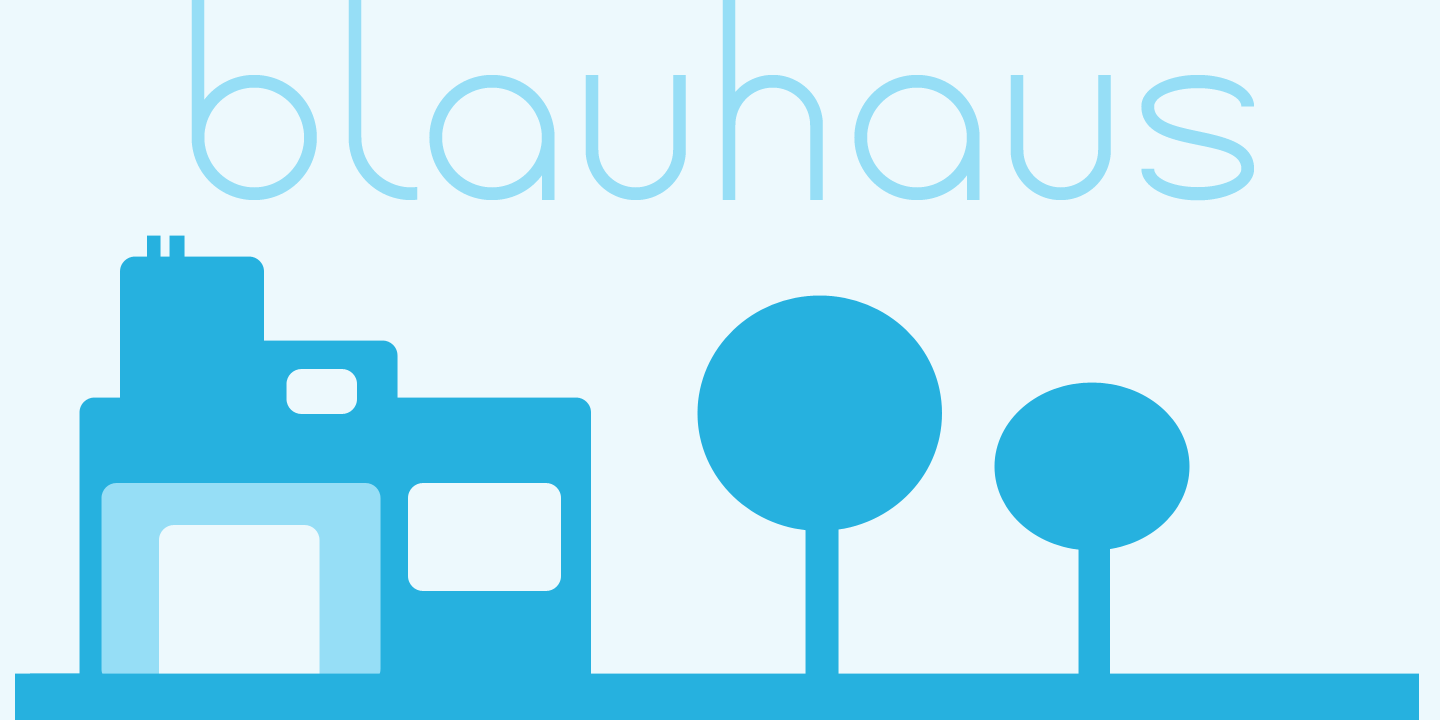
Blauhaus Font excels in diverse design applications including Bauhaus-inspired architecture firms, modernist design studios, contemporary art galleries, minimalist furniture companies, progressive educational institutions, avant-garde cultural centers, German design heritage projects, and innovative technology companies that require modernist sophistication and architectural elegance.
What makes Blauhaus Font truly exciting is its authentic embodiment of Bauhaus design principles and German modernist philosophy that captures the revolutionary spirit of functional beauty and the seamless integration of form and function that defined one of the most influential design movements in history. This distinguished typeface features clean, geometric letterforms with precise angular construction that evoke images of the iconic Bauhaus school building, Walter Gropius's architectural masterpieces, and the revolutionary design thinking that emphasized clarity, functionality, and the elimination of unnecessary ornamentation. The font's modernist character reflects the progressive vision and rational approach that made Bauhaus design timeless and universally influential, making it perfect for brands that want to communicate design excellence, innovative thinking, and the enduring principles of functional modernism. Its architectural appearance creates immediate associations with German design heritage and modernist sophistication.
The Blauhaus Font family includes multiple weights and modernist variations designed to enhance architectural communication. The collection features Thin, Light, Regular, Medium, SemiBold, and Bold weights, each maintaining the font's characteristic Bauhaus appeal while offering different levels of modernist presence. The family also includes condensed versions for efficient space usage, geometric alternates that enhance architectural significance, and comprehensive character sets with modernist symbols and design iconography. Additional features include contextual ligatures and architectural sets that create clean, rational text arrangements perfect for design and educational applications.
Design and architecture professionals consistently choose Blauhaus Font Free Download for projects requiring authentic Bauhaus character and modernist credibility. The font's architectural nature makes it particularly effective for design studios, architecture firms, and educational institutions targeting audiences who appreciate German design heritage and modernist principles. Its excellent readability across various applications ensures effective communication while maintaining the distinctive Bauhaus character that conveys design authority and architectural sophistication.
The advanced OpenType capabilities of Blauhaus Font include contextual alternates, stylistic sets, and comprehensive character support that accommodates architectural terminology and design expressions while preserving the font's authentic Bauhaus character. The technical precision ensures consistent modernist appearance across different design applications and architectural platforms.
For creative professionals seeking a typeface that embodies genuine Bauhaus heritage and modernist sophistication, Blauhaus Font offers unparalleled design appeal and architectural elegance. Its ability to convey modernist authority while maintaining functional communication makes it invaluable for design studios, architecture firms, and educational institutions. The font's distinctive Bauhaus character ensures memorable design impact across all applications, creating powerful visual identity systems that celebrate the enduring legacy of Bauhaus design and the timeless principles of functional modernism that continue to influence contemporary architecture and design excellence.